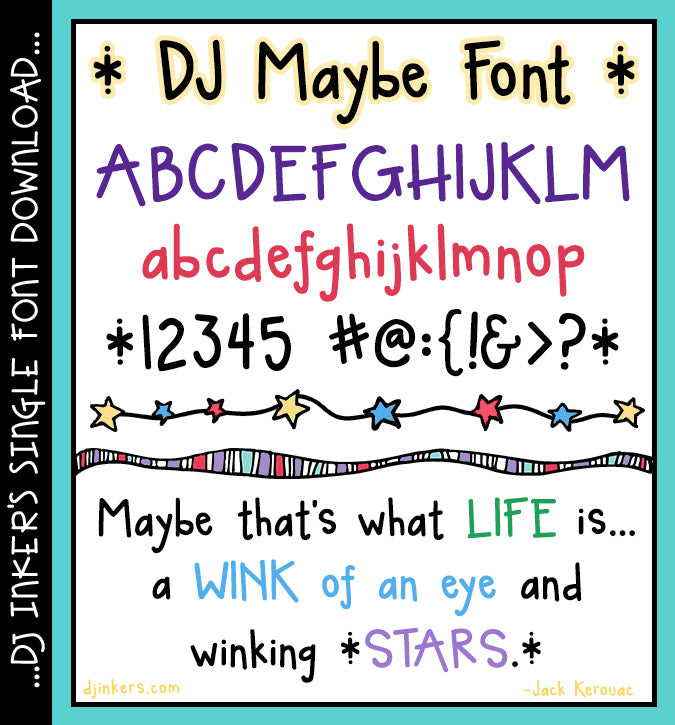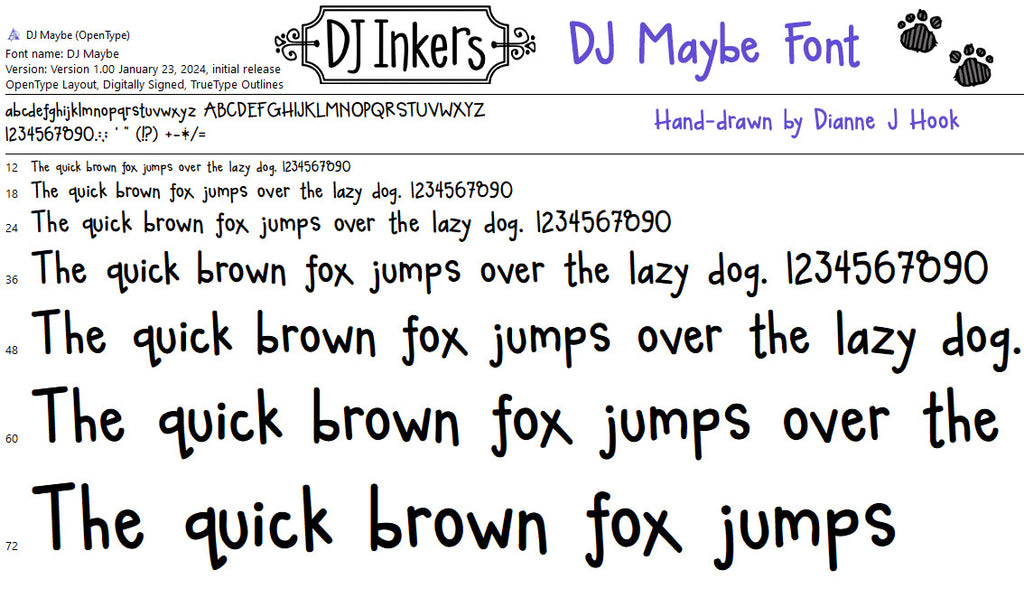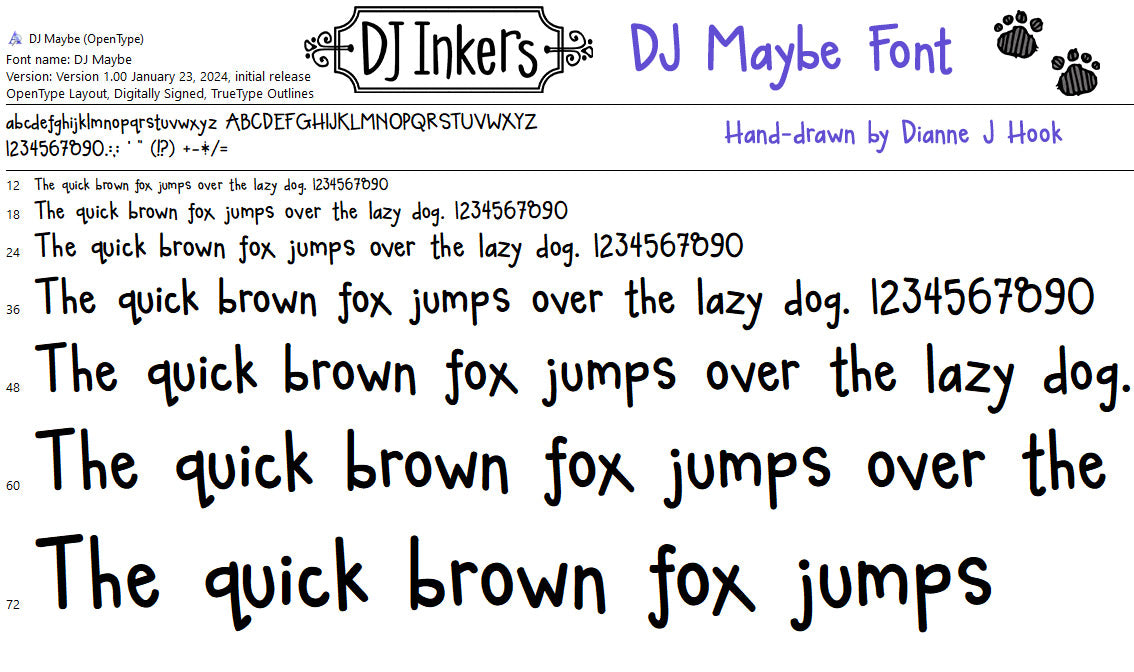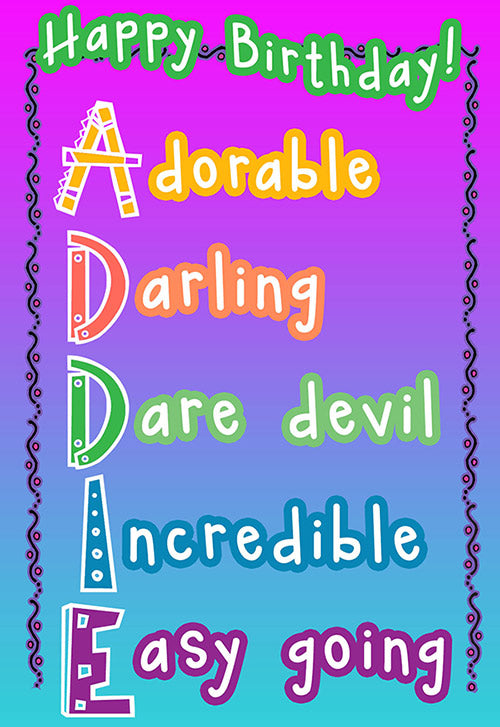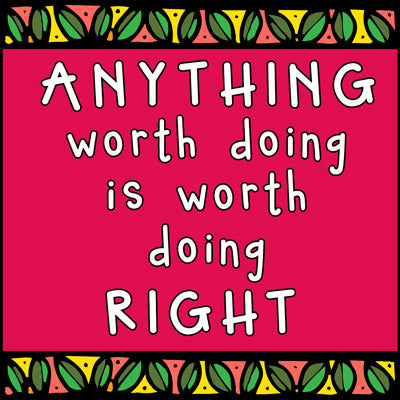
DJ Maybe Font Download
We're hoping... that Maybe this cute new font will be great on your next
project! This hand-written lettering is bold and playful, but simple enough
for everyday text. Type up a smile on your newsletters, hand-outs, worksheets,
invitations and crafty creations.